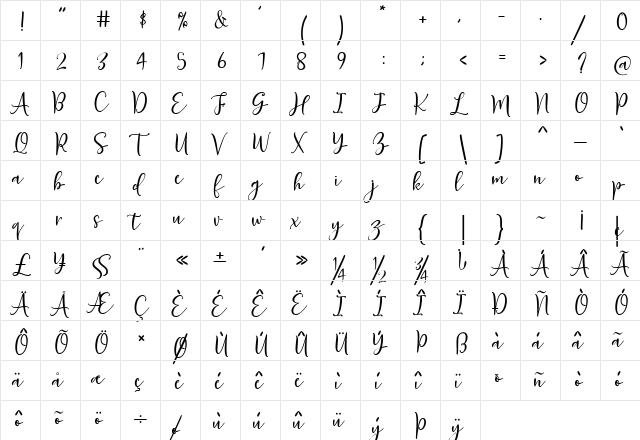
Sherilyn Regular
Regular · Zane Studio Murzani ·
Foundry Zane Studio
FoundryZane Studio
DesignerMurzani
Design Context for Sherilyn Typeface
Sherilyn takes a measured approach to typography — its balanced proportions and neutral character make it a reliable workhorse for both digital and print work.